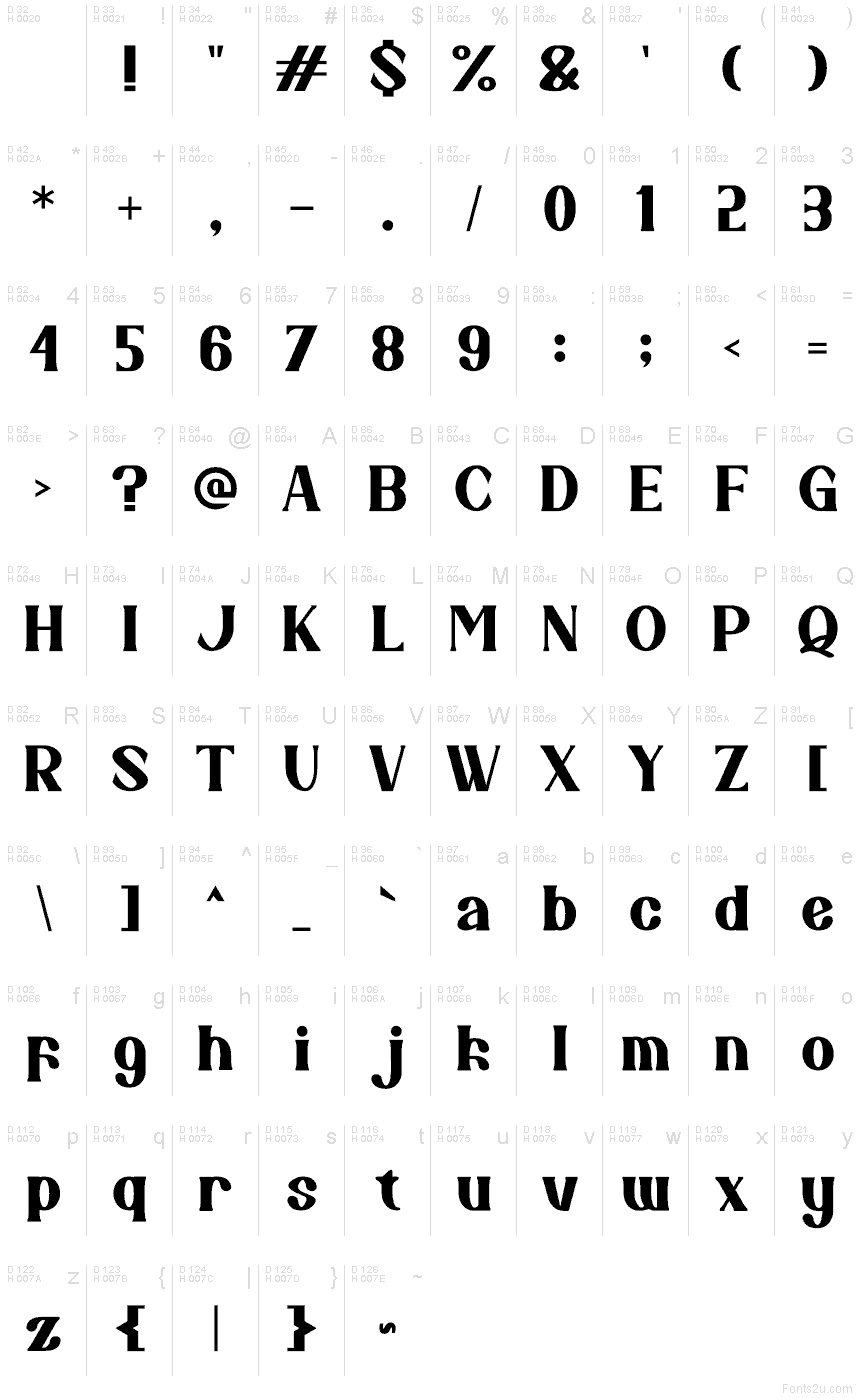
Famous Cool
Famous Cool font by Suhadidesign is a free retro display typeface that brings old-school headline drama back to life. Heavy, inky strokes and tightly packed letterforms create a sense of urgency, like vintage newspaper banners or classic rock posters shouting from across the street. The shapes feel sturdy yet slightly playful, with rounded edges that soften the weight, so your titles look bold without feeling harsh.
Using Famous Cool, you can give logos, posters, book covers, album art, product packaging, and social graphics a confident, throwback attitude that still reads clearly at a glance. This free font thrives at large sizes where its chunky rhythm and dense spacing can really punch through. For body copy or supporting text, pair it with a clean, unobtrusive sans serif and let Famous Cool handle the loud, attention-grabbing moments.